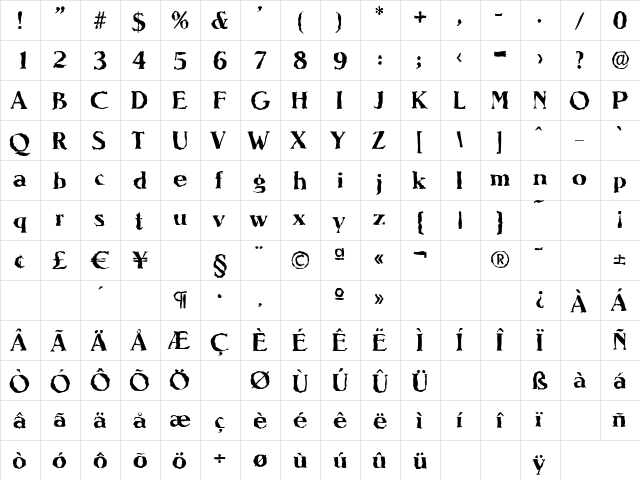
NevadaRandom Bold
Design Context for NevadaRandom Typeface
NevadaRandom takes a measured approach to typography — its balanced proportions and neutral character make it a reliable workhorse for both digital and print work. The heavy weight commands attention and anchors typographic hierarchies.